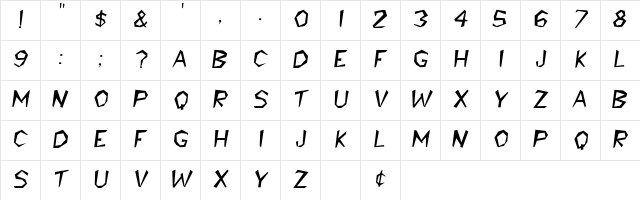
Lackey Oblique Free Font
Lackey Oblique
Design Context for Lackey
Lackey is a composed and adaptable typeface that performs quietly and consistently across a wide range of design contexts. The slanted form adds forward momentum and visual energy.
Pro Tip: Use Lackey for emphasis, pull quotes, and subheadings where its slanted energy can add rhythm to the layout.